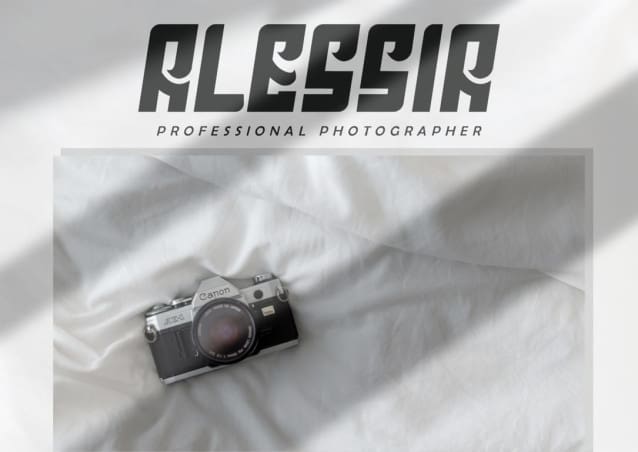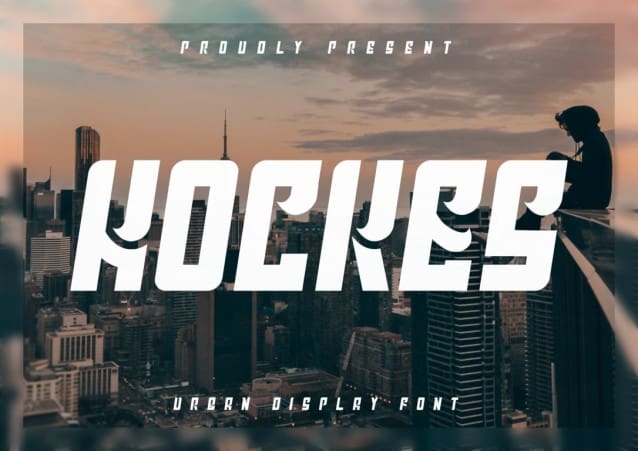
Hockes Font
Hockes Font, a sophisticated and on-trend sans-serif font that effortlessly complements a vast range of projects. Infuse it into your creative ideas and witness how it elevates them to new levels of visual appeal, grabbing attention and making a remarkable impression.